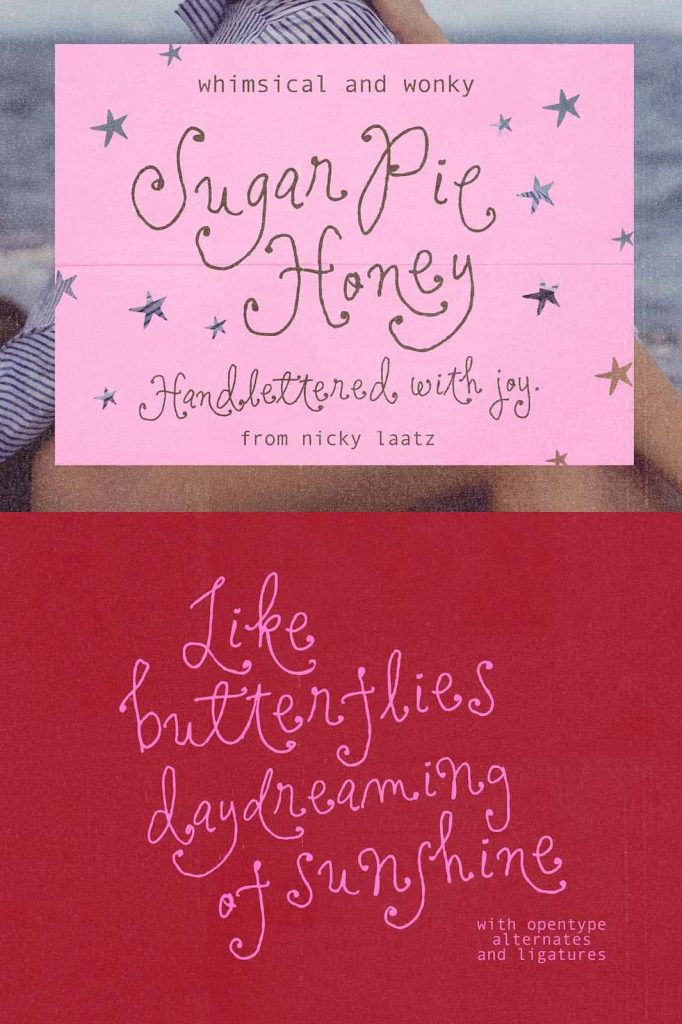
Sugar Pie Honey Display Font – Whimsical Handmade Typeface Full of Personality
Sugar Pie Honey Display Font is a delightful handcrafted display typeface designed to fill your creative projects with charm, warmth, and playful personality. Featuring wonky letterforms, whimsical curves, and a dreamy handmade aesthetic, this unique font transforms ordinary typography into expressive works of art. Every character celebrates creativity, making Sugar Pie Honey the perfect choice for designers who want typography that feels fun, memorable, and full of life.
Inspired by hand-drawn lettering, playful doodles, and modern creative trends, Sugar Pie Honey blends artistic imperfections with excellent readability. Its organic shapes create an authentic handcrafted appearance while maintaining enough balance for professional design work. Whether you’re creating branding, packaging, posters, social media graphics, or personalized stationery, this display font adds a magical touch that instantly captures attention.
Designed for creatives who love expressive typography, Sugar Pie Honey brings joy and individuality into every project. Its unique style helps brands and designers create emotional connections through typography that feels friendly, approachable, and beautifully imperfect.
A Whimsical Font Designed for Creative Expression
Sugar Pie Honey embraces the beauty of handcrafted lettering by moving away from rigid geometric perfection. Instead, it celebrates soft irregularities, playful curves, and expressive character shapes that make every word feel lively and unique.
The slightly uneven letterforms create an organic rhythm that mimics natural hand lettering, giving your typography warmth and authenticity. Rather than appearing overly polished, the font feels genuine and full of creative energy, making it ideal for projects that value originality and personality.
This whimsical approach allows Sugar Pie Honey to stand apart from traditional display fonts while remaining highly versatile across numerous design styles.
Dreamy Handmade Aesthetic
One of the defining qualities of Sugar Pie Honey is its dreamy handmade appearance. Every character feels carefully drawn by hand, giving the font a soft and welcoming personality. The flowing curves and rounded details create typography that feels cheerful without becoming overly decorative.
The handcrafted style works beautifully for modern brands that want to communicate authenticity, creativity, and friendliness. Whether used in large headlines or decorative titles, Sugar Pie Honey creates typography that immediately feels personal and memorable.
Key Features
- Whimsical handcrafted display font.
- Wonky letterforms with playful personality.
- Soft curves and rounded character design.
- Dreamy handmade aesthetic.
- Excellent readability for display typography.
- Perfect for modern creative branding.
- Suitable for both print and digital projects.
- Unique style that stands out in any design.
Create Memorable Branding with Character
Typography is one of the strongest visual elements of a brand, and Sugar Pie Honey helps businesses create identities that feel approachable, creative, and unforgettable. Its playful appearance communicates warmth while maintaining enough professionalism for commercial applications.
This font works especially well for small businesses, children’s brands, bakeries, cafés, handmade products, beauty brands, boutique shops, creative agencies, gift stores, lifestyle brands, and artisan businesses.
Whether featured in logos, product packaging, websites, or promotional materials, Sugar Pie Honey adds personality that helps businesses connect emotionally with their audiences.
Perfect for Packaging and Product Labels
Sugar Pie Honey brings handcrafted charm to packaging design, making products feel more personal and inviting. The font works beautifully on candles, cosmetics, baked goods, handmade crafts, stationery, clothing labels, gift boxes, stickers, and artisan food packaging.
Its expressive character immediately attracts attention while reinforcing a brand image built around creativity, quality, and originality. Products featuring Sugar Pie Honey naturally feel more welcoming and memorable.
Ideal for Posters, Invitations, and Greeting Cards
The playful nature of Sugar Pie Honey makes it an excellent choice for invitations, greeting cards, birthday decorations, party stationery, seasonal promotions, and event posters. Its lively appearance creates a cheerful atmosphere that enhances celebrations and special occasions.
The font also performs beautifully in art prints, inspirational quotes, personalized gifts, and creative typography compositions where expressive lettering becomes the centerpiece of the design.
Excellent for Social Media and Digital Content
Modern content creators need typography that captures attention instantly, and Sugar Pie Honey delivers outstanding visual impact across digital platforms. Its handcrafted personality makes social media graphics, Instagram posts, Pinterest pins, YouTube thumbnails, online advertisements, and blog headers feel more engaging and creative.
Sugar Pie Honey Display Font is a whimsical handcrafted typeface designed to bring playful personality and dreamy charm into every creative project. Featuring wonky letterforms, soft curves, and an authentic handmade aesthetic, this versatile display font is perfect for branding, logos, packaging, posters, invitations, greeting cards, social media graphics, merchandise, and artistic typography. Add Sugar Pie Honey Display Font to your design library and create memorable visuals that celebrate creativity, warmth, and handcrafted beauty.